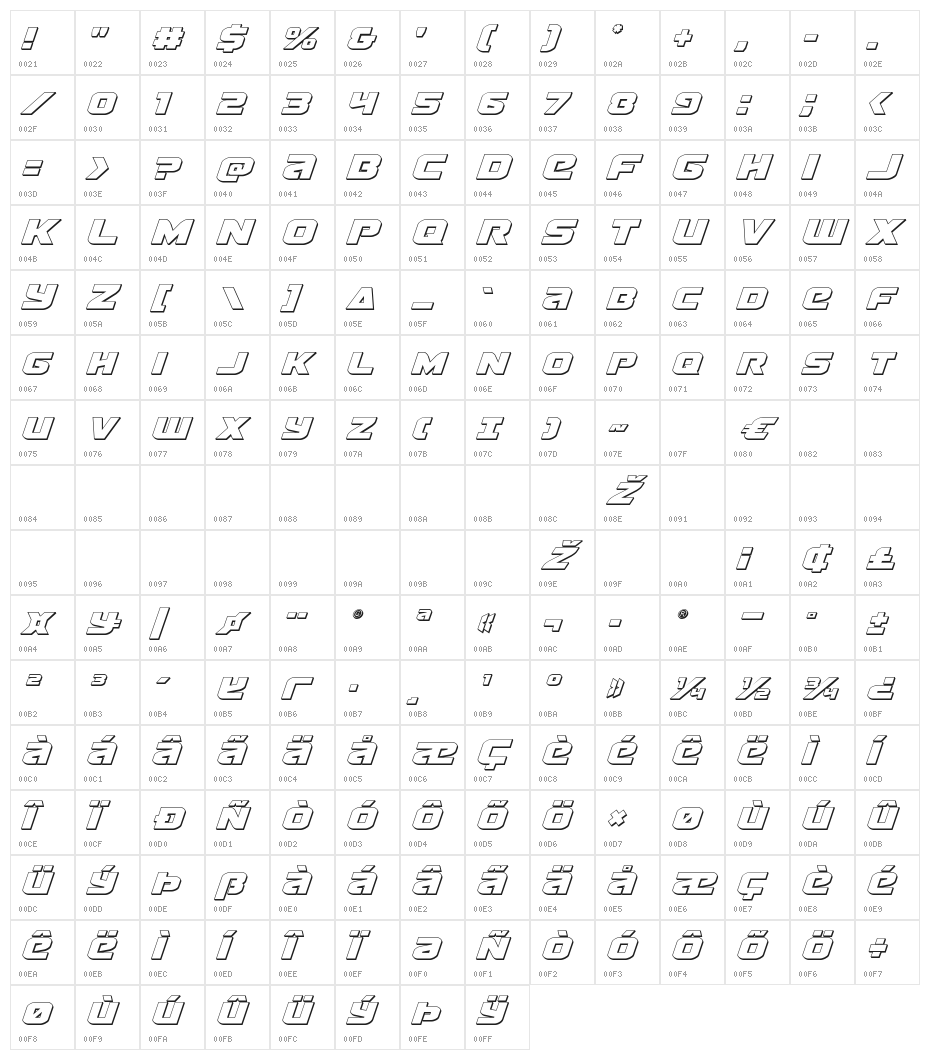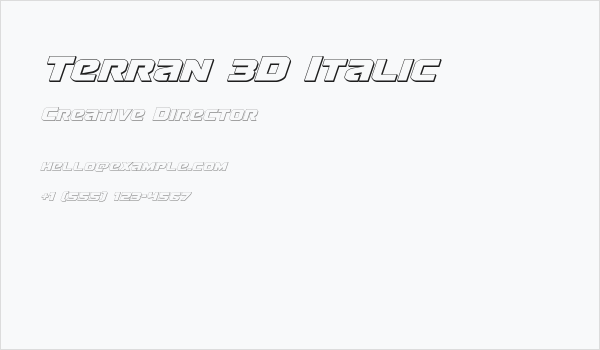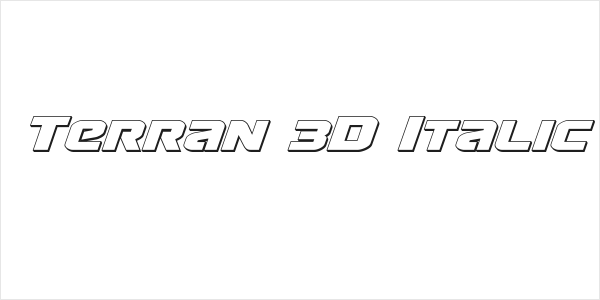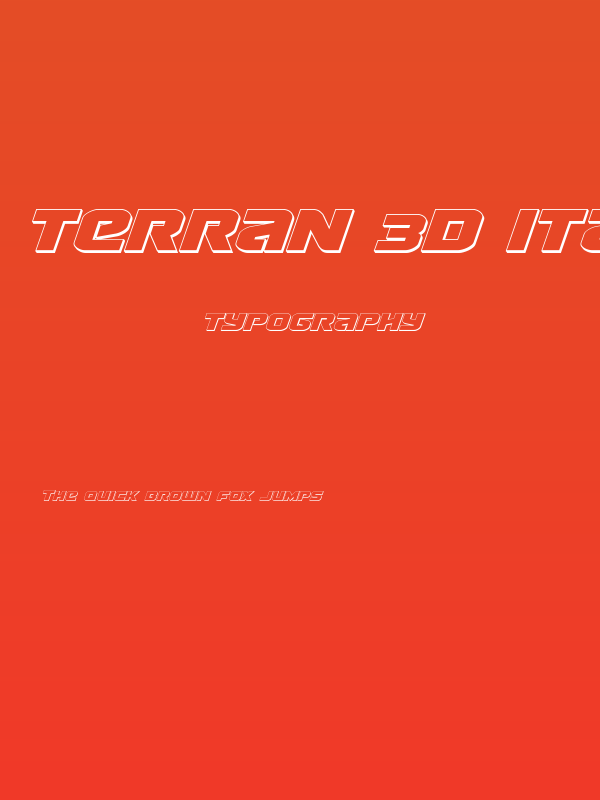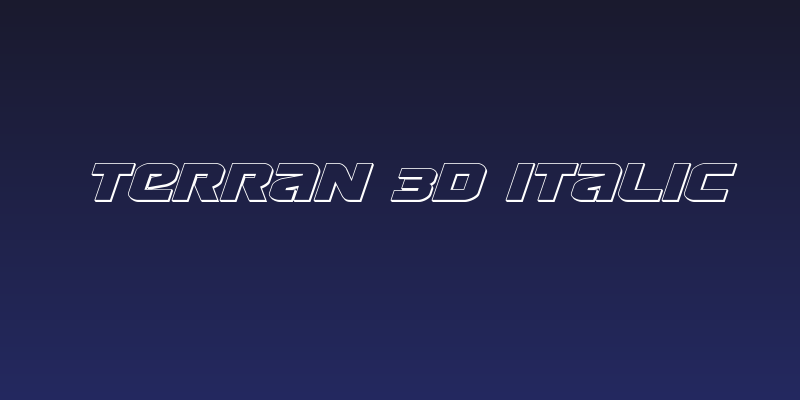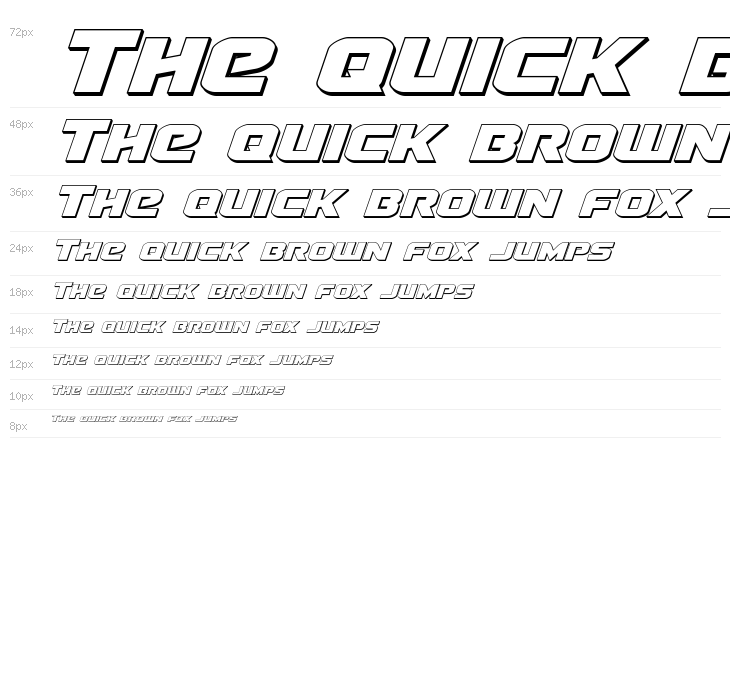
Terran 3D Italic Font
Terran 3D Italic Description
This font features a bold, three-dimensional style with italicized characters that create a sense of movement and depth. The letters are outlined with a shadow effect, giving them a futuristic and dynamic appearance. The uppercase and lowercase letters maintain a consistent design, with sharp angles and clean lines that enhance readability. The numerals and special characters are equally bold and stylized, making them stand out effectively. This font is ideal for projects that require a modern and eye-catching look.
| Proposed Projects | Ideal for sci-fi themed posters, video game titles, and technology branding. |